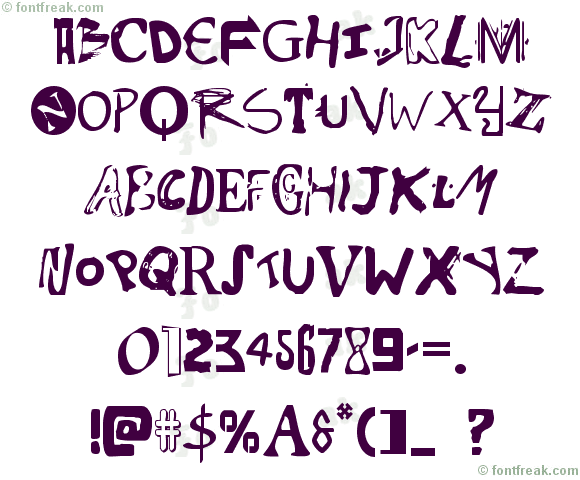
Psycho Butcher
The Psycho Butcher font, designed by Daniel Zadorozny, is a striking display typeface that falls into the decorative category. Released in 2014, this unique font captures a sense of chaos and intrigue, making it perfect for projects that require an edgy, unconventional aesthetic. Its visual characteristics include irregular stroke weights and a playful contrast that gives each letter a sense of personality. The spacing is deliberately uneven, enhancing the wild and unpredictable vibe of the typeface. Decorative elements such as jagged edges and quirky curves further emphasize its distinctive style.
This font shines in specific use cases where a bold statement is needed. It is ideal for horror-themed movie posters or promotional materials, where it can evoke suspense and excitement. Additionally, Psycho Butcher works well for graphic novels or comic book covers, where a unique typographic style can capture the reader's attention. It can also be effectively utilized in restaurant menus, particularly for establishments that embrace a quirky or avant-garde theme. Small business owners looking to create eye-catching branding materials will find this font particularly appealing, as it communicates a sense of creativity and originality.
The target audience for the Psycho Butcher font includes graphic designers, content creators, and small business owners who seek to make a memorable impact with their visual communications. Its freeware licensing allows for easy access, making it an attractive option for those on a budget.
What sets the Psycho Butcher font apart is its ability to convey a sense of whimsy and darkness simultaneously. This balance makes it a versatile choice for a variety of projects, ensuring that it will leave a lasting impression. For those interested, a Psycho Butcher font free download is readily available, providing a unique tool for any creative endeavor.